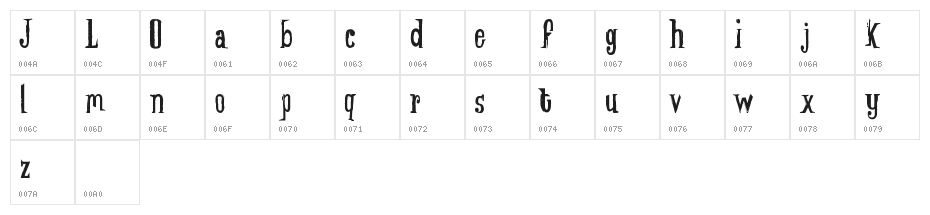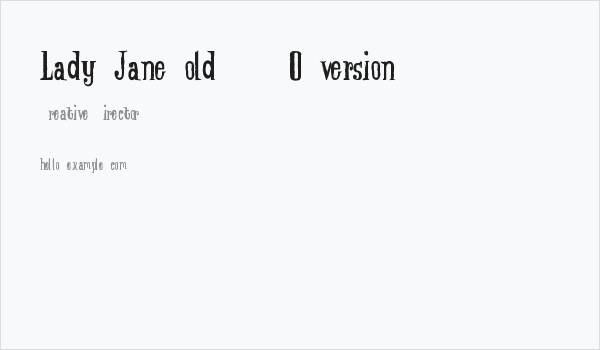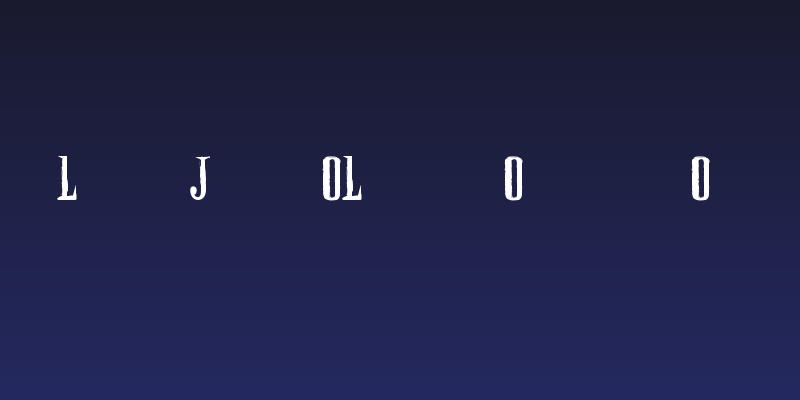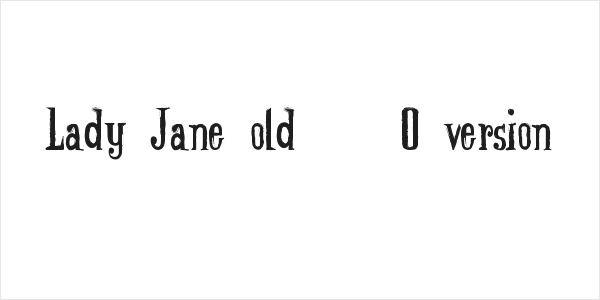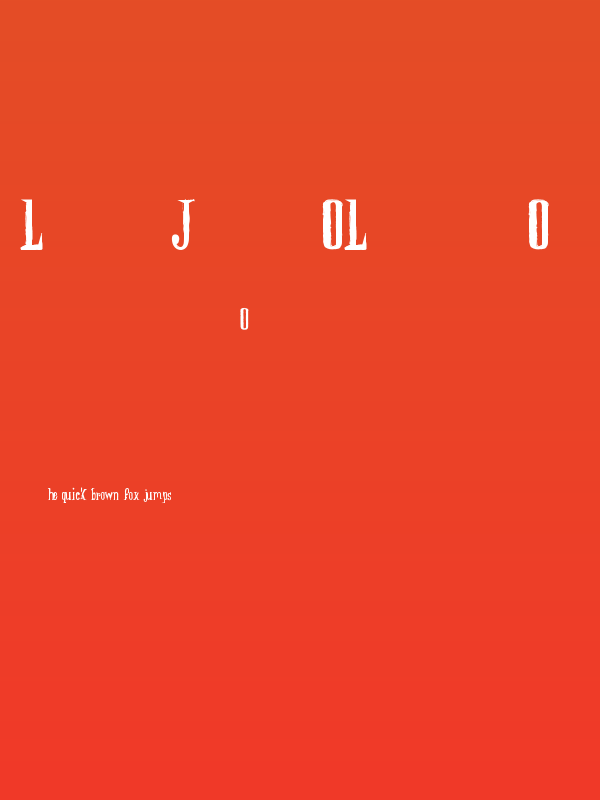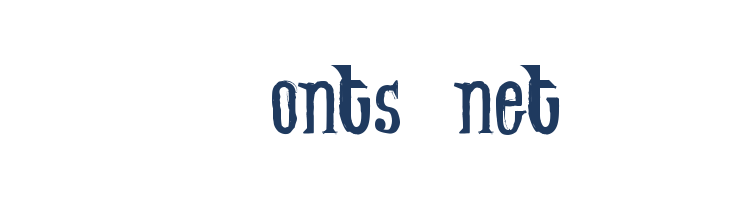
Lady-Jane-old_DEMO-version Font
This font exudes a vintage charm with its distressed and slightly irregular letterforms, reminiscent of old printing techniques. The characters have a hand-crafted feel, with varying stroke widths that add to its rustic appeal. The uppercase letters are bold and commanding, while the lowercase letters maintain a consistent style, enhancing readability. The font's unique personality is evident in its quirky serifs and the subtle variations in each letter, making it ideal for projects that require a touch of nostalgia or a historical theme.
| Proposed Projects | Ideal for vintage-themed posters, historical book covers, retro branding, and decorative signage. |